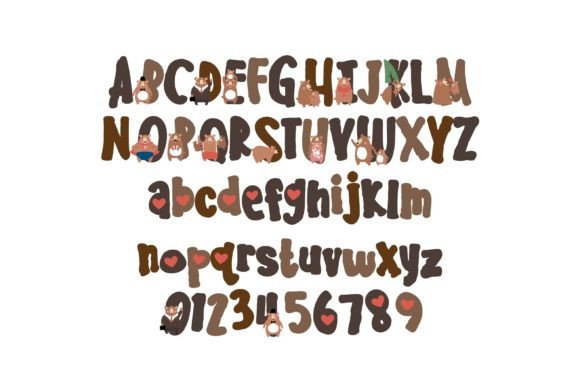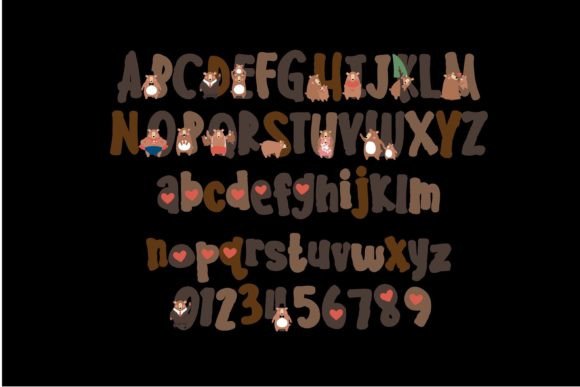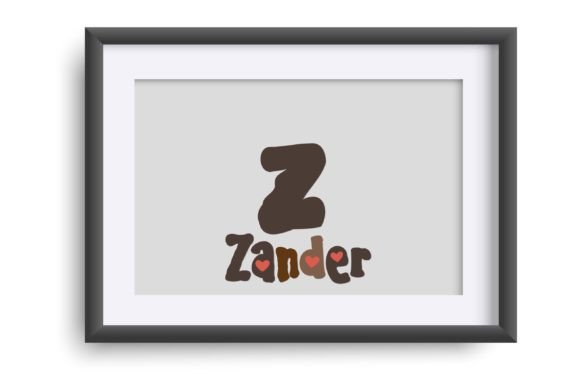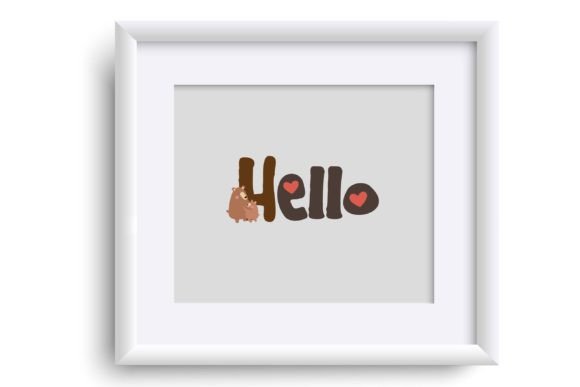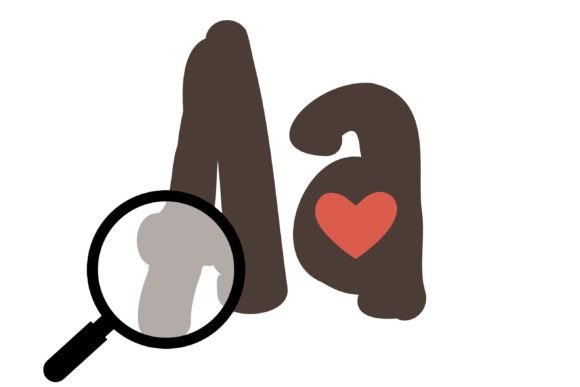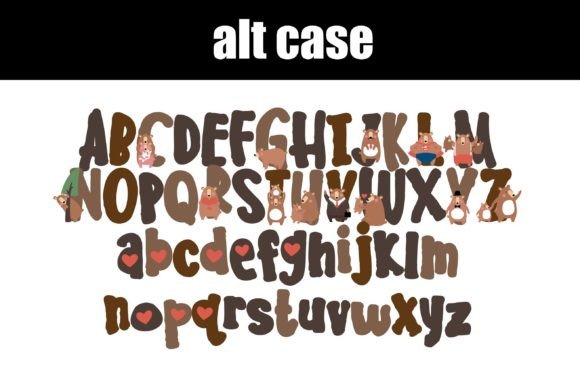
Introduction to Papa Bear Font
As I sat at my desk, staring at a blank canvas, I was searching for the perfect design resource to bring my creative project to life. That’s when I stumbled upon the adorable Papa Bear Font – a full-color font that features sans serif lettering with red hearts and adorable “Papa” bears on the uppercase lettering. I couldn’t wait to see how it would add a touch of whimsy to my design.
With its high-quality, transparent background design, the Papa Bear Font is a valuable asset for any designer looking to add a playful twist to their work. And the best part? It’s available for free download, making it an accessible design tool for creatives of all levels. Whether you’re working on a children’s book, a greeting card, or a social media graphic, the Papa Bear Font is sure to bring a smile to your face and inspire your creative vision.
Key Features of Papa Bear Font
- Papa Bear Font is a high-quality design resource featuring a unique, playful style suitable for creative projects.
- The Papa Bear Font family consists of 10 fonts in various weights, including bold and regular styles, to cater to diverse design needs.
- Its playful, hand-drawn aesthetic makes it an excellent choice for children’s books, educational materials, and other creative projects requiring a friendly, approachable tone.
Honest Review: Papa Bear Font
As a designer, I’m always on the lookout for unique and high-quality design resources. The Papa Bear Font is one such font that caught my attention. I was excited to dive in and see what it had to offer.
Here’s what I liked about the Papa Bear Font: ✨
- It has a fun and playful vibe that’s perfect for creative projects, such as children’s books or cartoons.
- The font is highly customizable, allowing me to adjust the size, color, and transparency of the text to suit my needs.
However, I did encounter some limitations: ⚠️
- The font may not be suitable for formal or professional projects, as it can come across as a bit too casual.
- The transparent background feature can sometimes make the text difficult to read, especially on dark backgrounds.
Overall, I was impressed with the Papa Bear Font’s versatility and creative potential. While it may not be perfect for every project, it’s definitely a great addition to any designer’s toolkit. With a little creativity and experimentation, I’m confident that you’ll be able to unlock the full potential of this unique font.
Tips for Getting the Most Out of Papa Bear Font
Experiment with different font sizes and colors to add visual interest to your design. Use the Papa Bear Font in combination with other design resources to create a unique and high-quality design.
Common Use Cases for Papa Bear Font
The Papa Bear Font is ideal for use in creative projects, such as logo designs, social media graphics, and marketing materials. Its unique and playful style makes it perfect for adding a touch of personality to your design.
Alternatives to Papa Bear Font
Comic Sans MS is a classic sans-serif font suitable for a variety of design projects, including greeting cards and children’s materials. It’s free to download and can be used with a transparent background. When to use: Casual and informal design projects, such as social media graphics or blog posts.
It compares to Papa Bear Font in its playful and approachable nature, but lacks the bold and modern feel of Papa Bear Font.